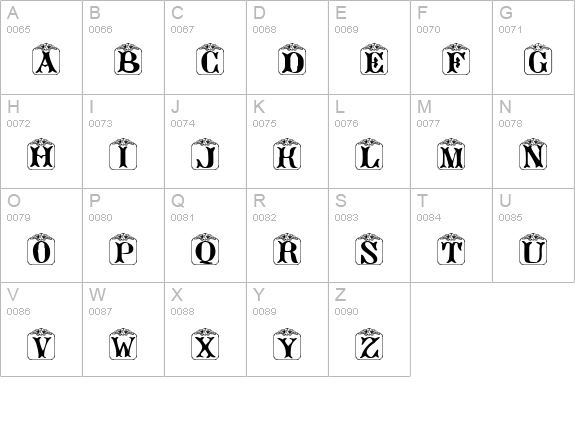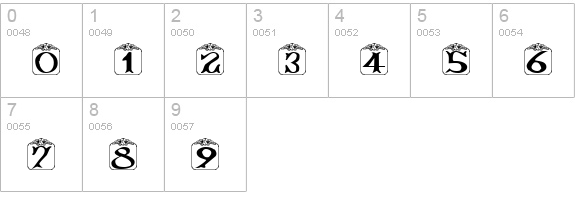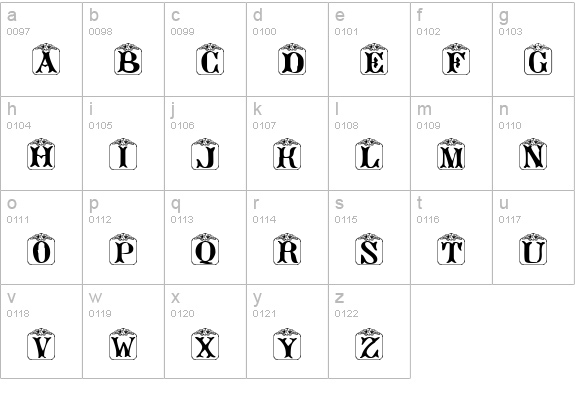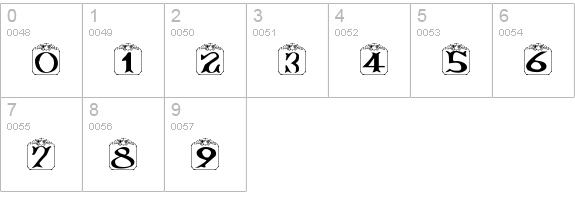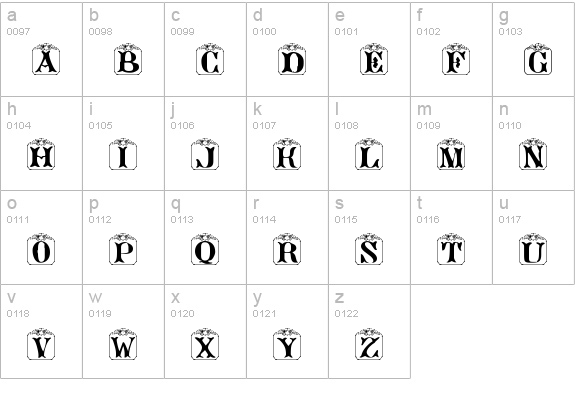
Angelots (Unregistered) Font Details
Angelots (Unregistered) font is a charming and elegant typeface that exudes a sense of whimsy and sophistication. Its delicate strokes and intricate details give it a unique and artistic appeal, making it perfect for a variety of design projects. The flowing curves and graceful lines of Angelots (Unregistered) font add a touch of grace and beauty to any text, making it a versatile choice for both digital and print applications. One of the best things about Angelots (Unregistered) font is that it is completely free to download. You can easily access this stunning font at FontsMarket.com, where you can find a wide range of other high-quality fonts as well. Whether you're working on a personal project or a professional design, Angelots (Unregistered) font is sure to elevate your work and leave a lasting impression. Download it today and add a touch of elegance to your designs!